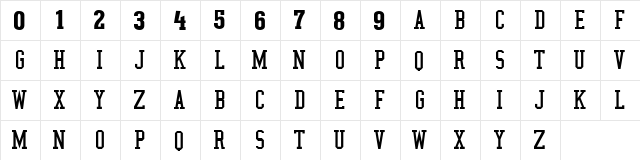
NBA SuperSonics Regular
Design Context for NBA SuperSonics Typeface
NBA SuperSonics takes a measured approach to typography — its balanced proportions and neutral character make it a reliable workhorse for both digital and print work.